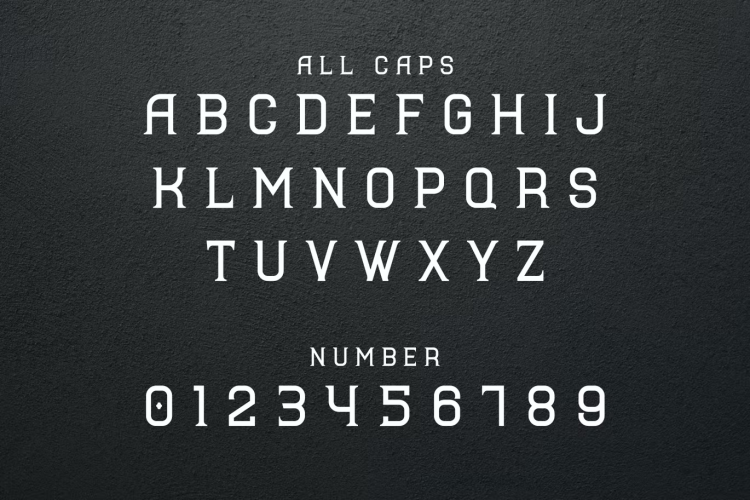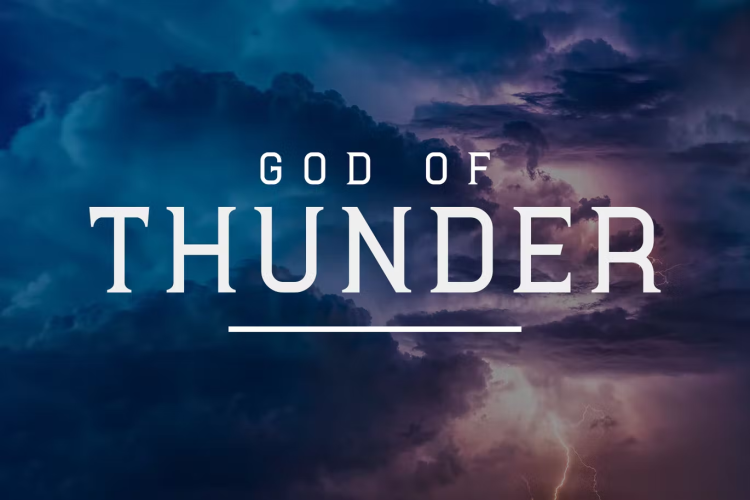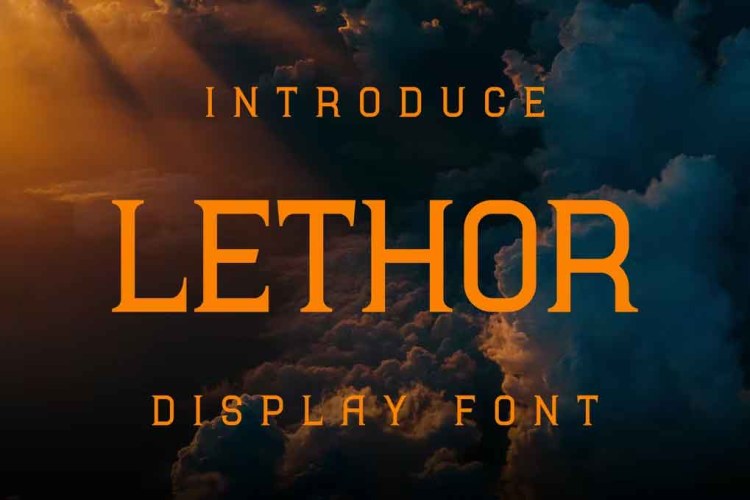
Lethor Font
Lethor Font Perfectly suited on print/screen. it’s perfect for Branding, name card, poster, logo, magazine, cover, banner, tshirt and headers, or even large-scale artwor…
Lethor Font Perfectly suited on print/screen. it’s perfect for Branding, name card, poster, logo, magazine, cover, banner, tshirt and headers, or even large-scale artwork.
Where Lethor Font works best
Lethor Font gives long-form text a classic, trustworthy rhythm — ideal for magazine spreads, annual reports and book interiors.
Pair Lethor Font with generous letter-spacing for wordmarks in fashion, hospitality, wine and jewellery branding.
Use Lethor Font for slide titles in Keynote, PowerPoint or Google Slides to add authority without looking dated.
What is Lethor Font good for?
Lethor Font is a Serif Fonts typeface tagged Branding, Editorial, Poster, Professional. It works well for headlines, logos, posters, social media graphics and branding projects that need a distinctive serif fonts look.